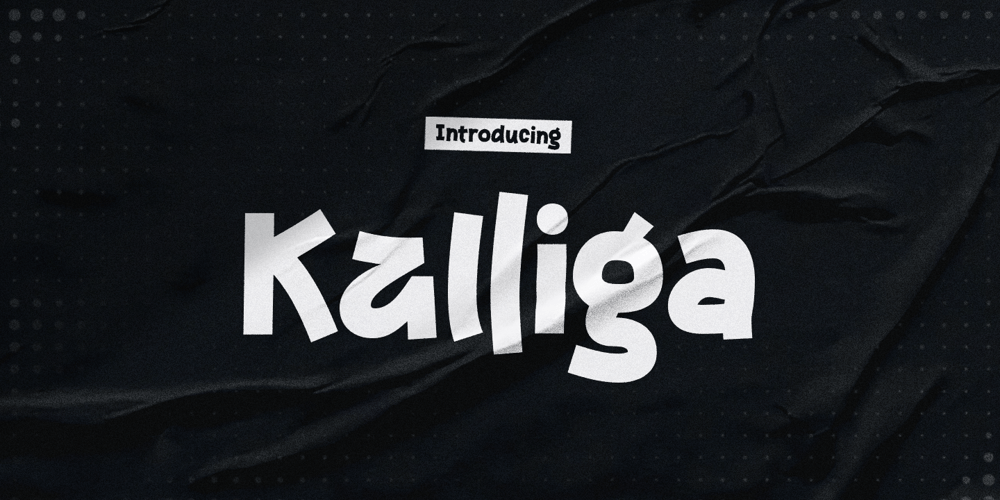
Kalliga Font Family was designed by Jarnawi Saja and published by Grontype. Kalliga contains 1 styles and family package options. Kalliga is a bold handwriting font that stands out with its sharp, distinctive edges. Designed for those who want to make a statement, this font combines the dynamic flow of natural handwriting with a strong, assertive presence. The sharp edges give it a modern, edgy feel, making it perfect for striking headlines, logos, and branding materials. Equipped with unique ligatures, Kalliga ensures smooth, visually appealing connections between letters, adding an extra layer of sophistication and creativity to your text. Whether you’re working on digital designs or print projects, Kalliga adds a bold and stylish flair to your work.Features:- Regular Bold Font- Basic Latin Glyphs- ligatures & Alternates- Numeral and Punctuation- Currencies- Multilingual SupportThankyou for Picking up this font. Cheers!!Jarnawi.